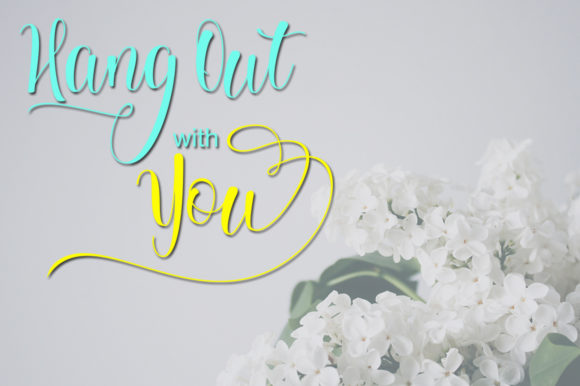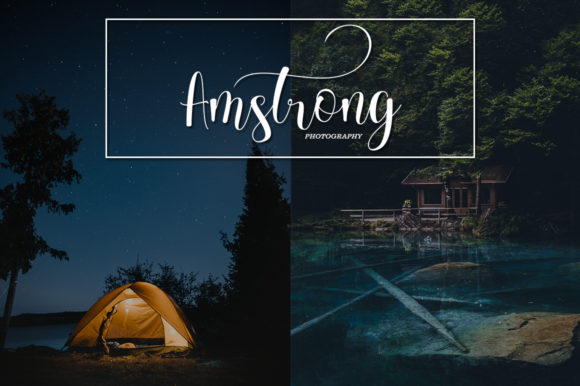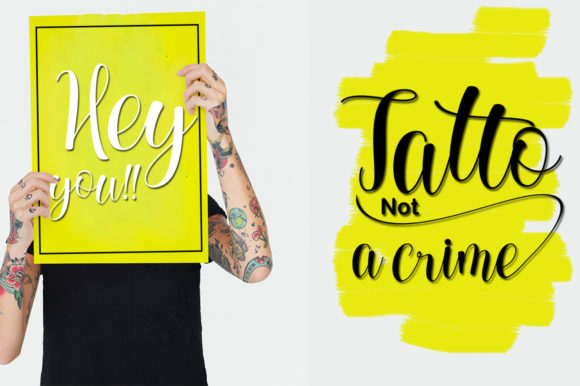
Introduction to My Diarys Font
Do you remember the moment when you sat down with a blank piece of paper, a pen in hand, and let your creativity flow onto the page? For many of us, that’s where the magic happens. Whether it’s a sketchbook, a journal, or a design project, there’s something special about putting our thoughts and ideas into words.
As designers, we’re always on the lookout for the perfect font to bring our creative vision to life. And when it comes to elegant, high-quality scripts, My Diarys Font is a game-changer. With its beautiful calligraphy style and stunning swashes, this font is a must-have for any design project that requires a touch of sophistication and class.
Key Features of My Diarys Font
- High-quality, hand-drawn design resource ideal for creative projects
- Unique, cursive script style with subtle flourishes and elegant curves
- Perfect for use in digital and print design, including invitations, greeting cards, and more
Honest Review: My Diarys Font
I recently stumbled upon the My Diarys Font while searching for a unique design resource for my creative project. I was pleasantly surprised by its high quality and versatility.
What works well is its transparency – literally! The font has a transparent background, which makes it perfect for overlaying on images or other designs. The font itself is a beautiful, cursive script that adds a touch of elegance to any project.
- ✨ High-quality design with a unique, elegant feel
- ✨ Transparent background for easy overlaying
- ⚠️ Limited character set, which may not be suitable for long-form text
- ⚠️ Not as readable at smaller font sizes, which may affect its use in certain contexts
Overall, I’m impressed with the My Diarys Font and would definitely recommend it for creative projects where a high-quality, elegant font is needed. Just be mindful of its limitations, and you’ll be golden!
Tips for Getting the Most Out of My Diarys Font
For the best results, use My Diarys Font in conjunction with a high-contrast background to make the text stand out. You can also experiment with different font sizes and styles to create a unique look.
My Diarys Font is perfect for a variety of creative projects, including blog posts, social media graphics, and advertising materials. Its high-quality design and transparent background make it a versatile resource for designers and non-designers alike.
Alternatives to My Diarys Font
Pacifico is a high-quality, elegant script font perfect for creative projects that require a touch of sophistication. It’s ideal for wedding invitations, branding, and other design elements that need a refined look. Pacifico is a free download and features a transparent background, making it easy to customize.
Compared to My Diarys Font, Pacifico has a more polished and refined feel, making it suitable for high-end design projects.
Great Vibes is a beautiful, handwritten font ideal for design projects that need a unique and creative touch. It’s perfect for branding, social media graphics, and other design elements that require a personal and emotive feel. Great Vibes is a free download and features a transparent background, making it easy to customize.
Compared to My Diarys Font, Great Vibes has a more playful and expressive feel, making it suitable for design projects that need a fun and engaging tone.
Alex Brush is a high-quality, elegant script font perfect for design projects that require a touch of sophistication and refinement. It’s ideal for branding, wedding invitations, and other design elements that need a polished look. Alex Brush is a free download and features a transparent background, making it easy to customize.